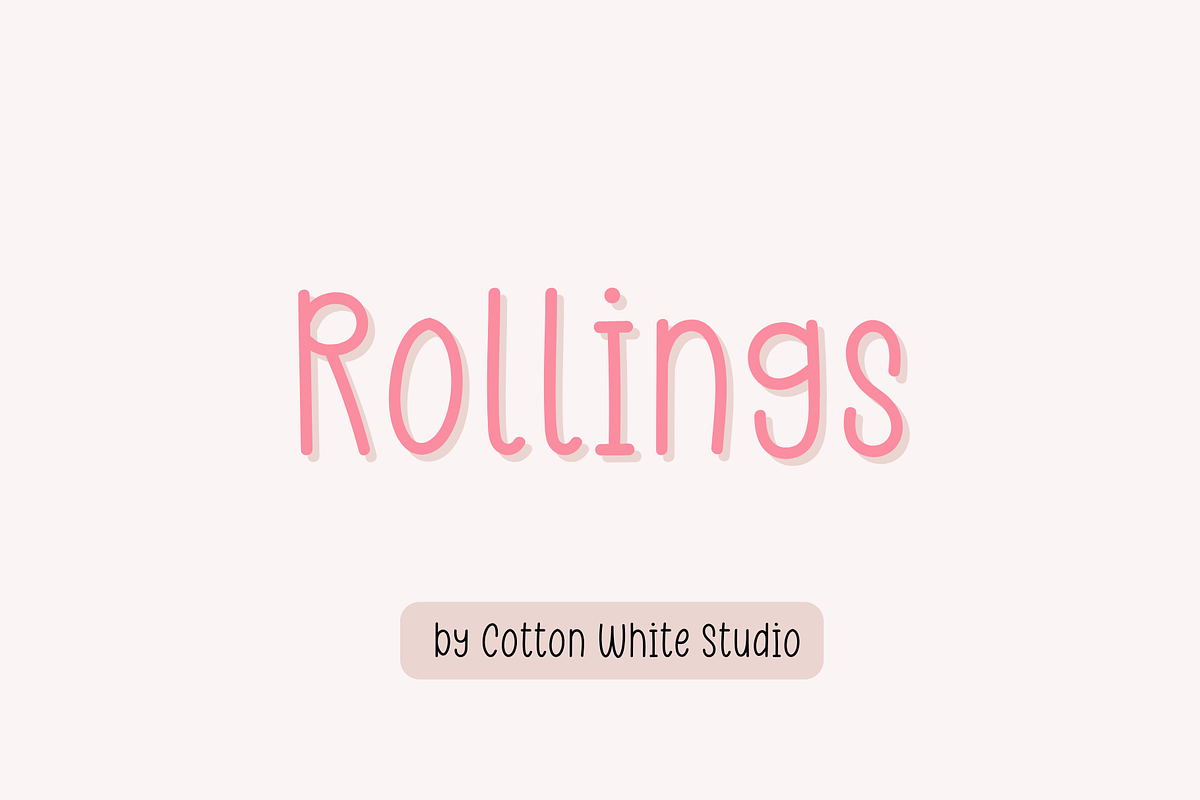
The Rollings Font Free Download is a dynamic and stylish typeface with a smooth, flowing design, ideal for creative projects that need an energetic, modern vibe. Perfect for logos, branding, posters, invitations, and social media graphics, this font adds a bold yet elegant touch to your designs. Please note, for commercial use, a license must be purchased. You can download it for free for testing purposes.
With its smooth curves and contemporary aesthetic, the Rollings Font Free Download is ideal for projects that require both clarity and personality. Whether you're working on a personal brand, event materials, or digital content, this font will give your designs a fresh and lively look.